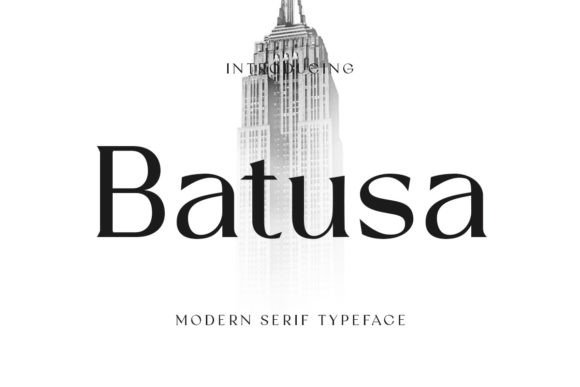
Immerse yourself in the world of Batusa, a modern serif typeface that exudes elegance and sophistication, leaving an indelible mark on your designs. Expertly crafted by yukitacreative, Batusa is a visual masterpiece meticulously designed for high-resolution displays and print media.
Unleash your creativity and elevate your designs to new heights with Batusa's captivating forms and finely balanced proportions. Its timeless beauty adds a touch of refinement to headlines, corporate branding, and any design seeking a hint of grace.
Experience the allure of Batusa's carefully crafted letterforms, each stroke meticulously shaped to evoke a sense of luxury and finesse. Its delicate curves and sharp edges dance in harmony, creating an unforgettable visual impact that commands attention.
Batusa's versatility extends beyond its captivating aesthetics. Its crisp and legible structure ensures readability even at small sizes, making it an ideal choice for both digital and print applications. From website headlines to brochures and business cards, Batusa effortlessly adapts, leaving a lasting impression wherever it appears.
Dive into the world of Batusa and let your designs flourish. Its timeless elegance and unwavering quality will elevate your projects to new heights, leaving a lasting impression on your audience. Embrace the power of Batusa and unlock the gateway to design excellence.